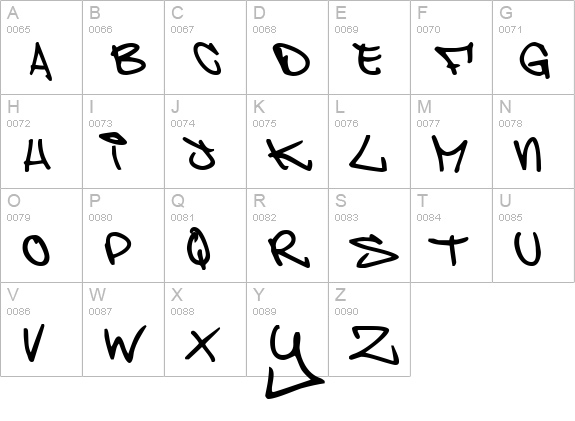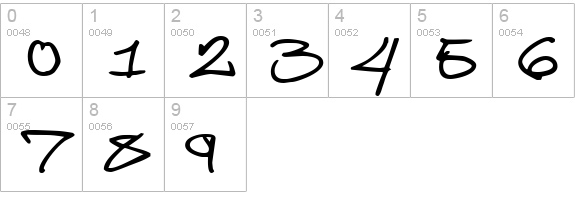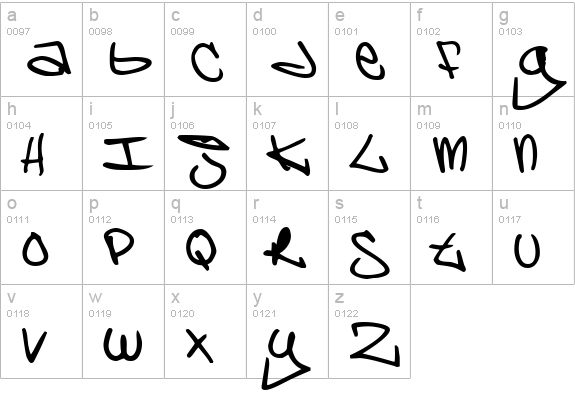
Brooklyn Kid Font Details
Brooklyn Kid font is a charming and playful typeface that exudes a youthful and trendy vibe. With its quirky and whimsical design, this font is perfect for adding a touch of fun and personality to your projects. The hand-drawn style of Brooklyn Kid font gives it a unique and artistic look that is sure to make your designs stand out. Best of all, Brooklyn Kid font is available for free download at FontsMarket.com! Whether you're working on a poster, logo, or social media graphic, this font will bring a fresh and energetic feel to your creations. Embrace the urban and youthful spirit of Brooklyn with Brooklyn Kid font and let your creativity shine!